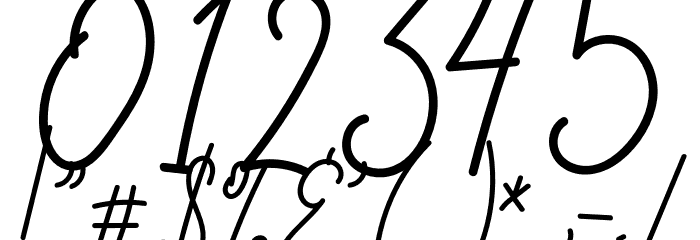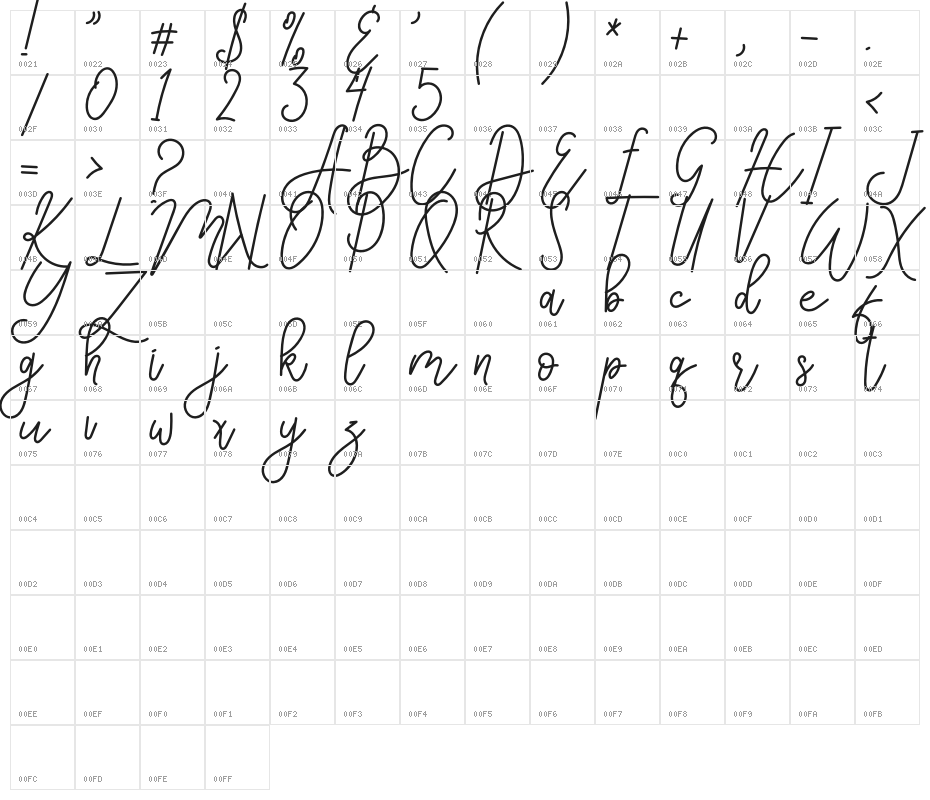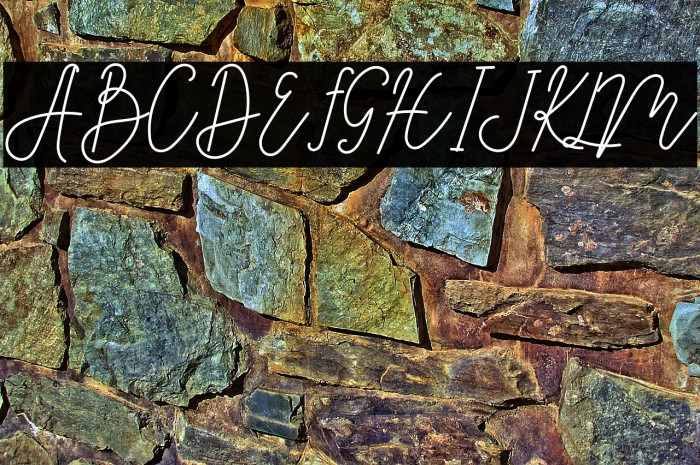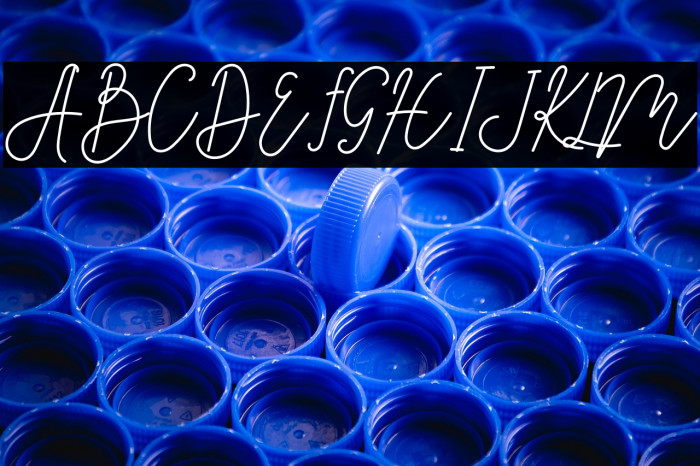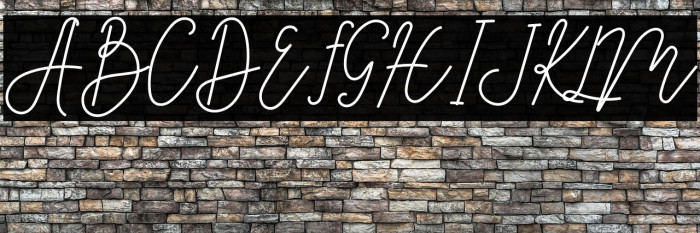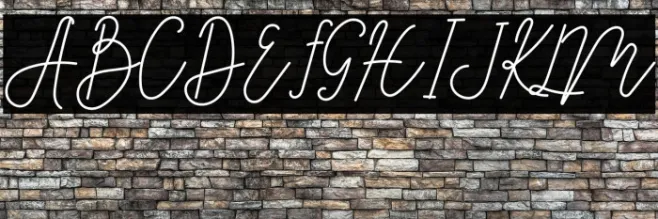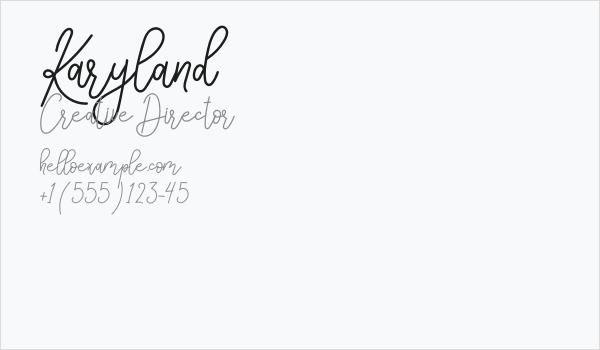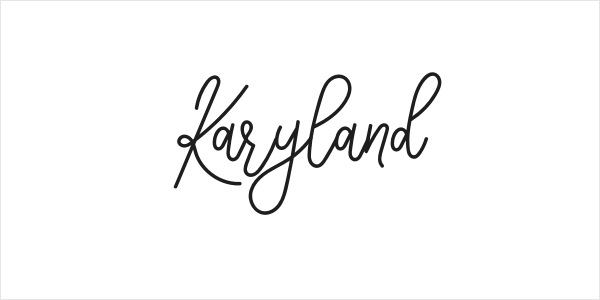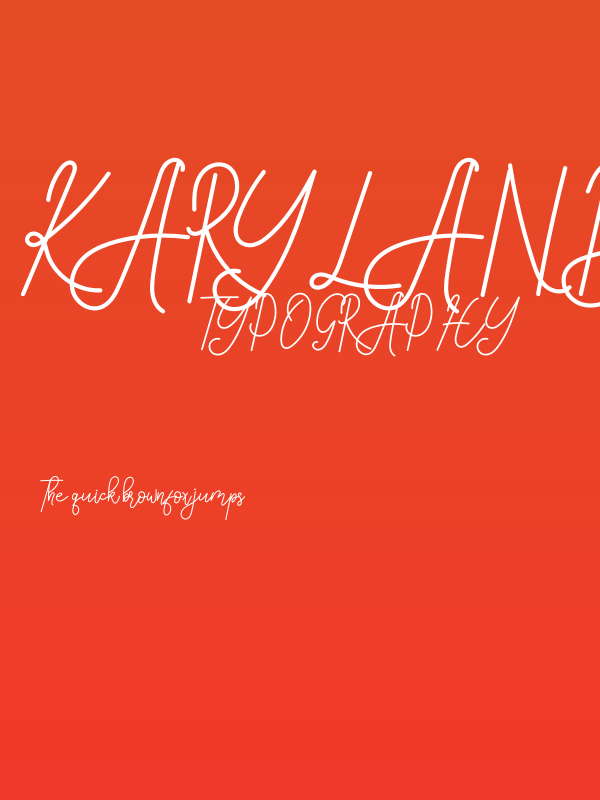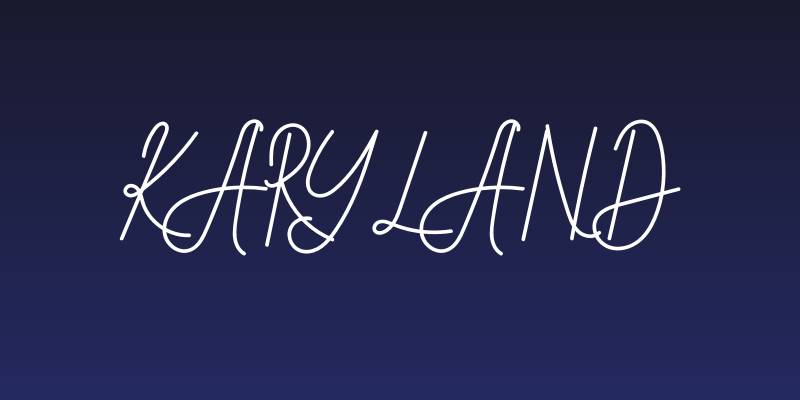
Karyland Font
Karyland Description
This font features an elegant, flowing script style that mimics the fluidity of cursive handwriting. The uppercase letters are tall and slender, with a slight slant that adds a sense of motion and grace. The lowercase letters are more compact, maintaining the same slant and fluidity, creating a harmonious balance between the two cases. The numbers and special characters follow the same stylistic cues, ensuring consistency throughout. The strokes are smooth and continuous, with a moderate contrast between thick and thin lines, enhancing readability while maintaining an artistic flair. This font exudes a sense of sophistication and creativity, making it suitable for various design applications.
| Overall Style | Elegant, Artistic |
| Use Case | Headlines, Invitations, Branding |
| Proposed Projects | Ideal for wedding invitations, greeting cards, elegant branding, and personal stationery. |